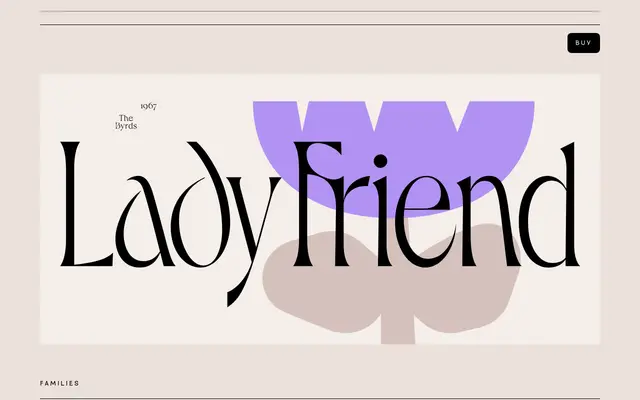
Dahlia
VJ Type · Jérémy Schneider · 2021
A display serif by Jérémy Schneider drawing on 1910s Italian lake posters and Art Nouveau, with 93 stylistic ligatures and expressive alternate letterforms.
Designed in 2021 for VJ Type, Dahlia pairs high contrast with floral-inspired terminals and counter forms drawn from flower stems, buds and spines. The six styles span three weights in upright and condensed widths, with the Bold leaning into contrast for maximum presence at large sizes. Ninety-three stylistic ligatures and a generous set of alternates give the family considerable expressive range for editorial, packaging and poster work.
A high-contrast display serif with Art Nouveau ornamental qualities, designed explicitly for headlines and short texts. Its expressive counter forms, stylistic alternates and ligature-heavy character set place it firmly in display rather than text use.